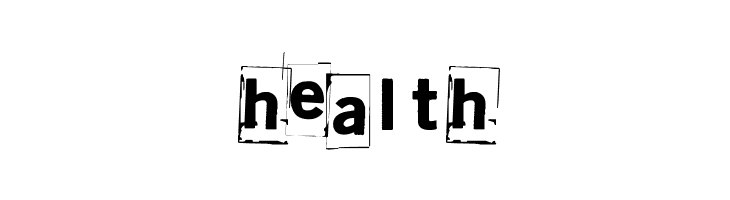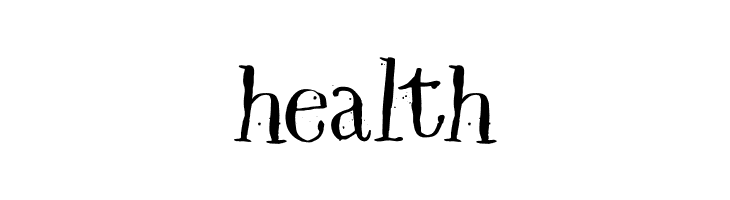
A bold, distressed font with a rugged, vintage aesthetic.
A distressed, grunge-style font with bold, irregular letterforms and a textured appearance.
A distressed, grunge-style font with a textured, hand-drawn appearance.
A distressed, grungy font with a bold, chaotic aesthetic.
A distressed, vintage script font with a textured, cursive style.
A decorative, grunge-style font with spirals and distressed textures.
A decorative, distressed font with elaborate swirls and a grungy appearance.
A bold, rugged font with a distressed, hand-crafted appearance.
A bold, decorative font with a vintage circus theme and ornate, distressed edges.
A bold, distressed font with a rugged, grunge aesthetic.
A bold, distressed font with a rugged, vintage appearance.
A bold, distressed font with a vintage, textured style.
A bold, distressed font with a rugged, stone-like appearance.
A distressed, modern font with elongated, slender characters and a grunge texture.
A bold, distressed font with a vintage, textured appearance.
A bold, distressed font with a rugged and industrial appearance.
A bold, distressed font with a rugged, grungy appearance.
A bold, distressed font with a grunge texture, ideal for impactful designs.
A bold, distressed font with a vintage, grunge texture.